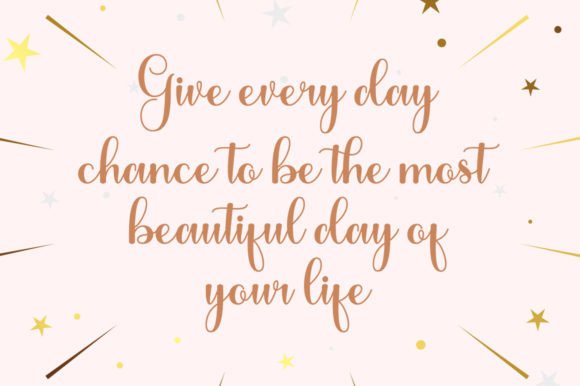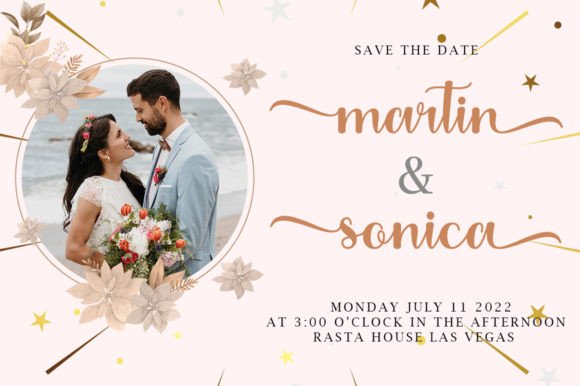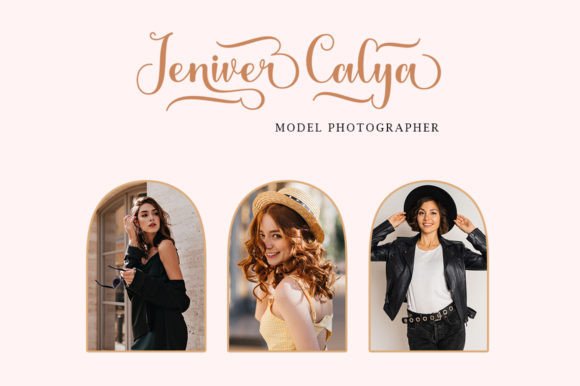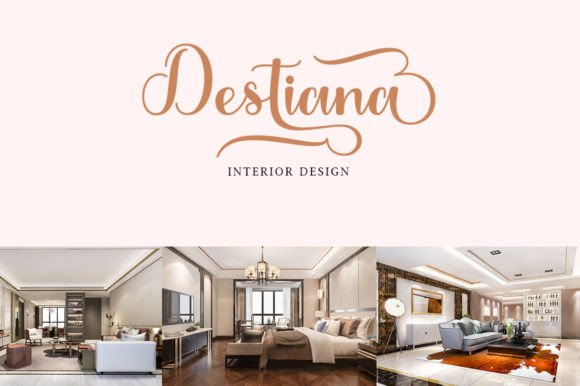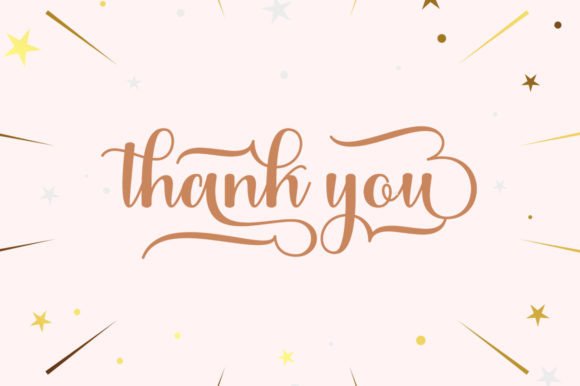
Introduction to Hey Batavia Font Font
Fonts play a crucial role in design, and the Hey Batavia Font font is a typeface that brings both character and versatility to any project. Whether you’re working on a branding project, a website, or a print design, the Hey Batavia Font font offers a unique style that can elevate your work.
| 📌 Font Name | Hey Batavia Font |
| 👤 Author | Letter Muray |
Hey Batavia is an incredibly unique handwritten font.
Masterfully designed to become a true favorite, this font has the potential to bring each of your creative ideas to the highest level This font is PUA encoded which means you can access all of the glyphs and swashes with ease.
Key Features of Hey Batavia Font Font
Why Choose Hey Batavia Font Font?
The Hey Batavia Font font is more than just a typeface – it’s a design tool that helps you communicate your message with style and clarity. Its unique character set and versatile design make it suitable for a wide range of applications, from elegant invitations to bold headlines.
With its carefully crafted letterforms and balanced proportions, the Hey Batavia Font font ensures readability and visual appeal across all mediums.
What makes Hey Batavia Font font special?
The Hey Batavia Font font stands out with its unique design, exceptional readability, and versatility across various design applications.